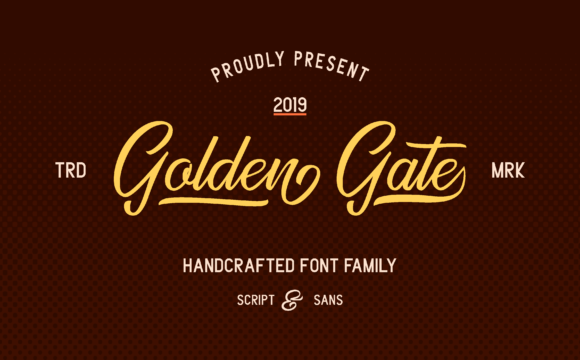
Golden Gate Duo Font
Welcome to the world of Golden Gate Duo, where elegance and boldness intertwine to create a captivating symphony of fonts. This magnificent font duo, crafted by the visionary Adriansyah, is a testament to the power of handwritten artistry.
Unleash your creativity with our bold sans font, perfect for injecting a touch of strength and modernity to your designs. Let your words dance across the page with an air of confidence and impact, capturing the attention of all who behold them.
And when you seek a touch of grace and sophistication, our elegant script font stands ready to enchant. Its swirling lines, reminiscent of a calligrapher's quill, will add a touch of timeless beauty to your creations, evoking a sense of wonder and intrigue.
Together, these two fonts are a match made in design heaven. Combine them effortlessly to create logos that radiate both power and charm, posters that speak to the soul, and titles that demand to be read. The possibilities are endless, and the results will leave an unforgettable mark.
Whether you're a seasoned designer or just starting your creative journey, Golden Gate Duo is the perfect companion for your imagination. Its versatility knows no bounds, and its ability to elevate your designs will leave you breathless.
So, why settle for ordinary fonts when you can embrace the extraordinary? Dive into the world of Golden Gate Duo today and let your creativity soar to new heights.